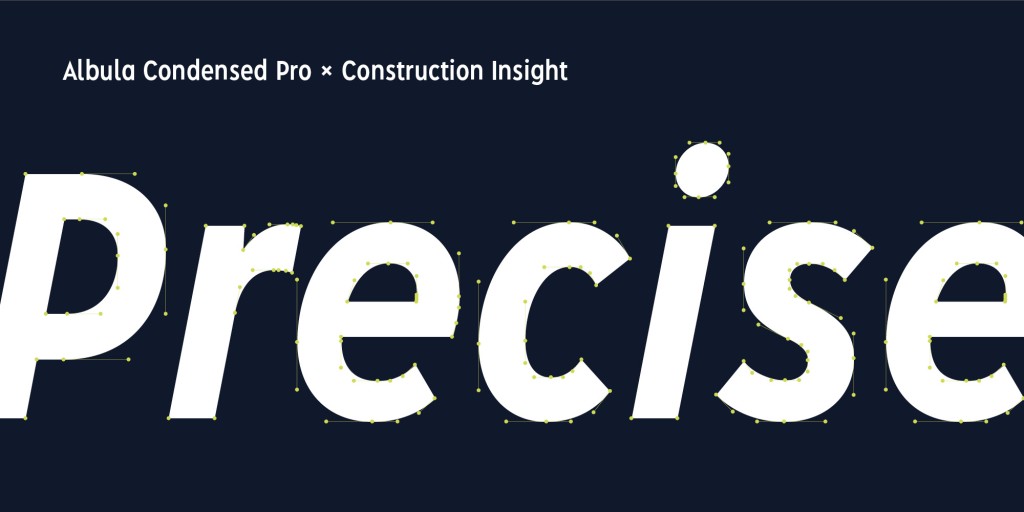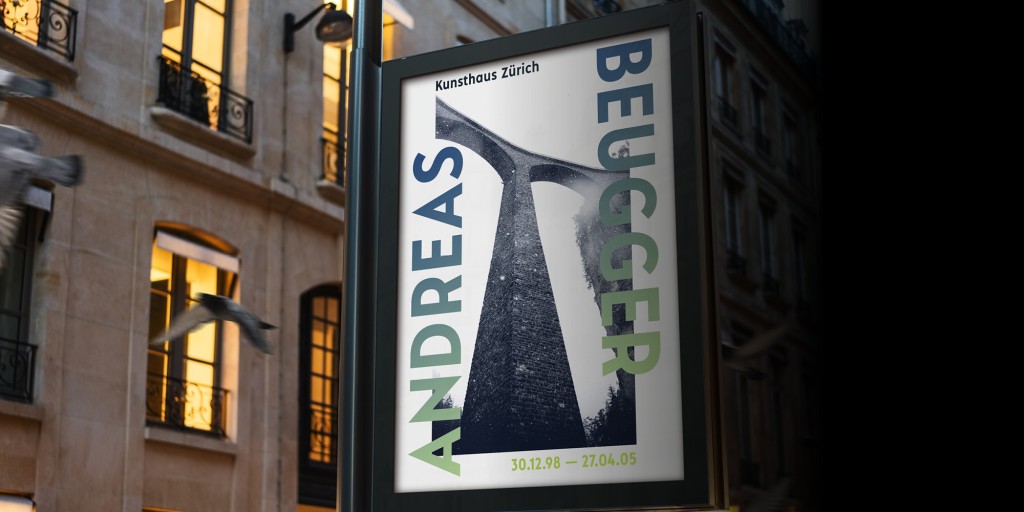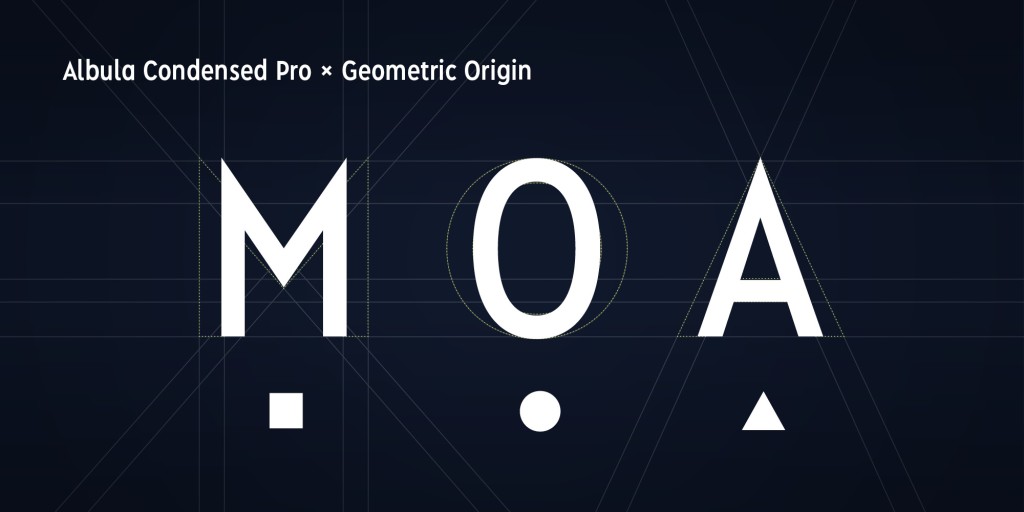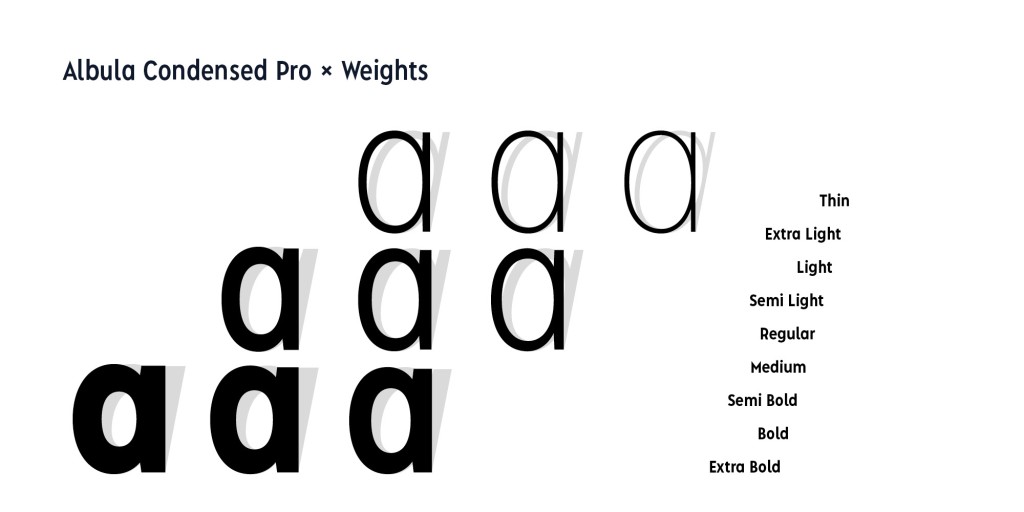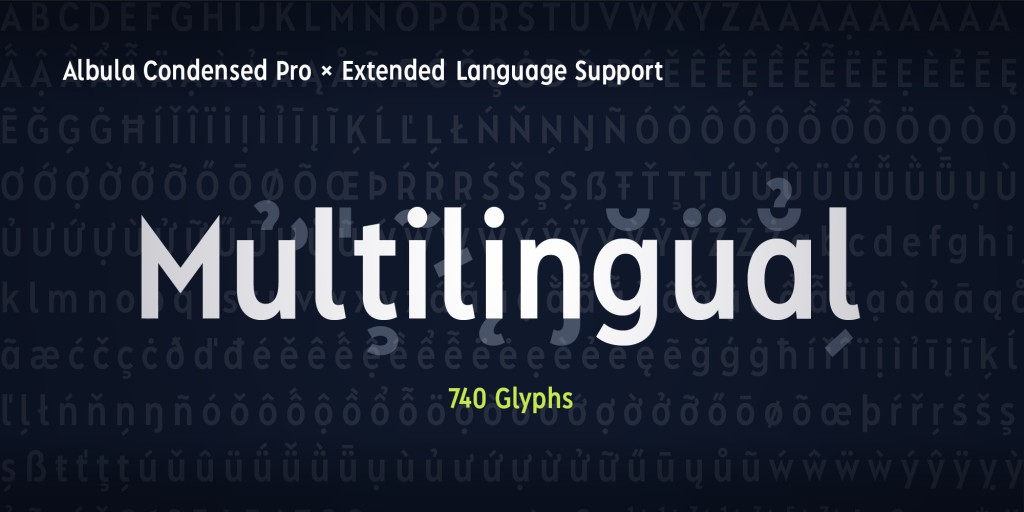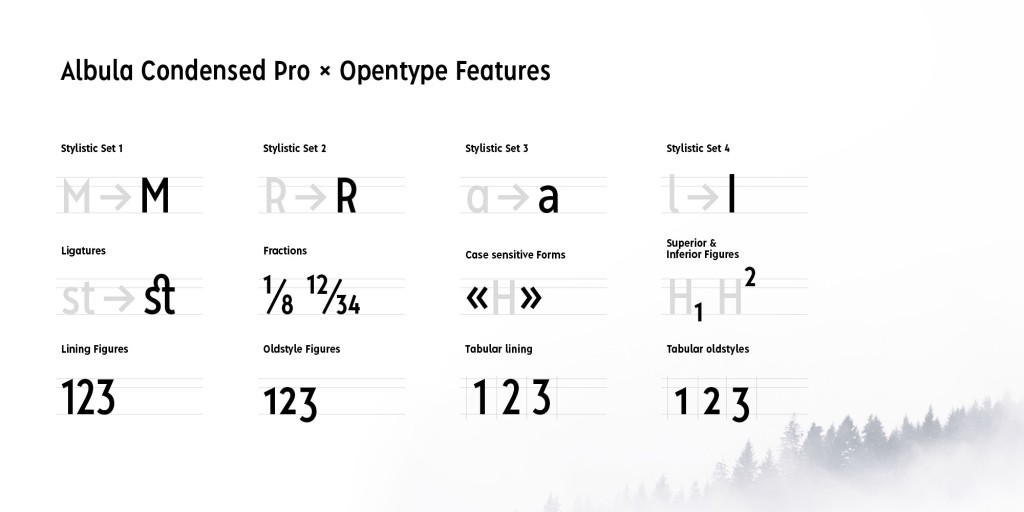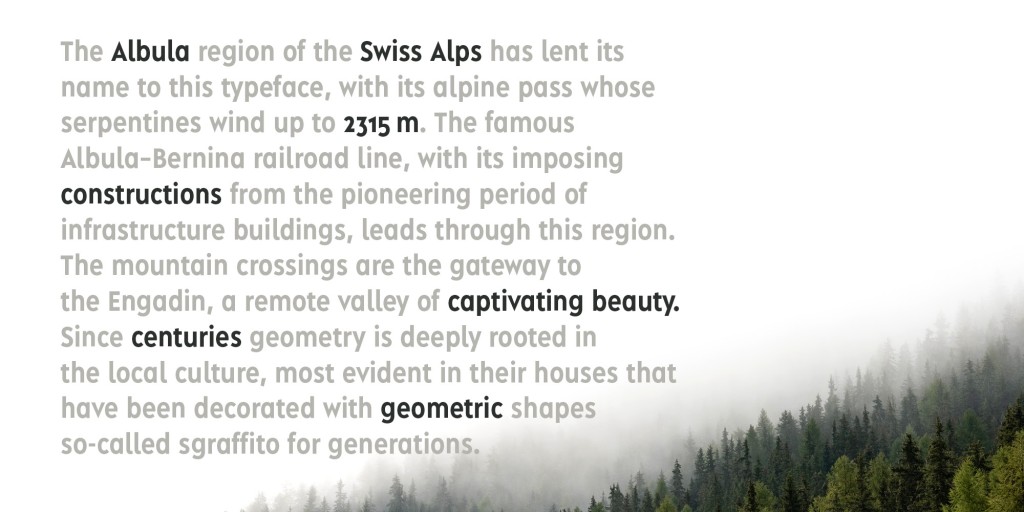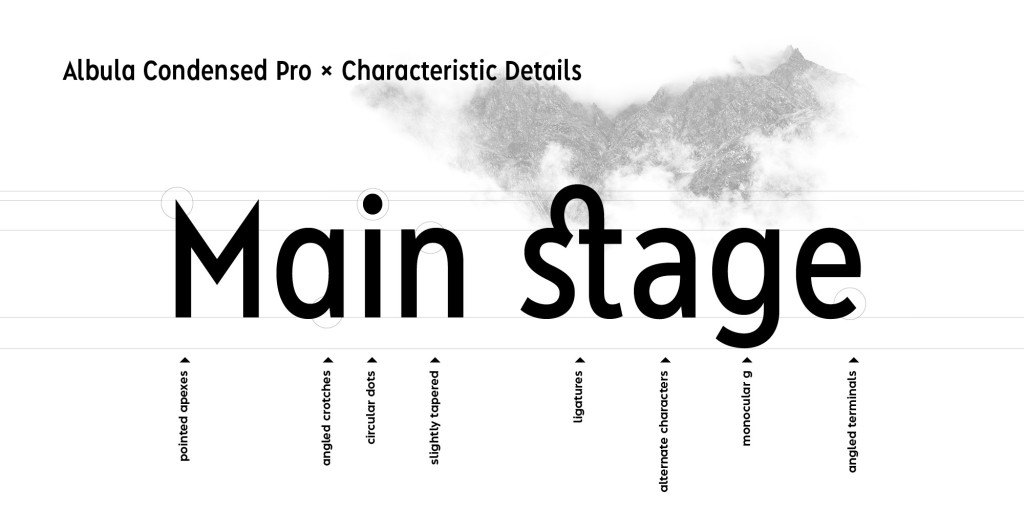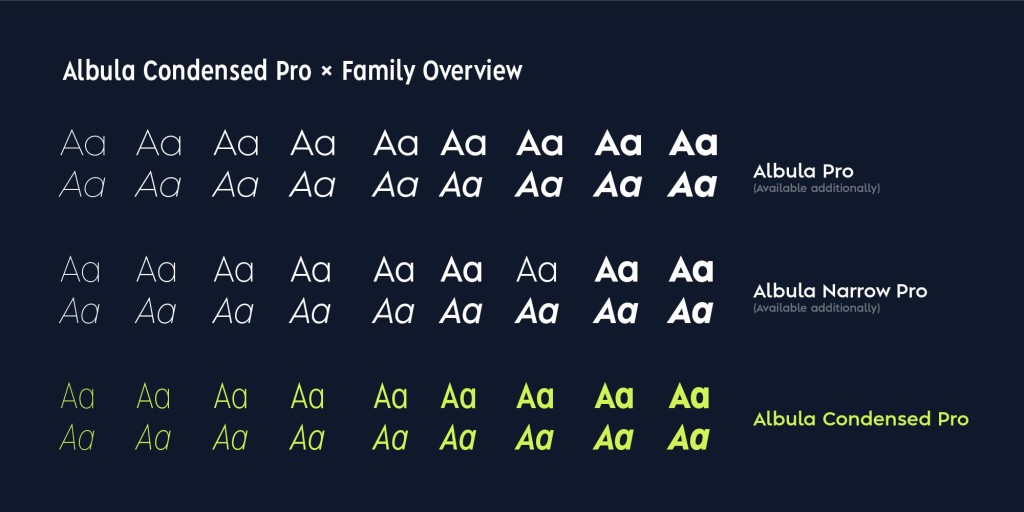
Albula Condensed Pro
The condensed variant of the Albula family, designed for situations where space is at a premium. Its tight proportions maintain excellent legibility even at small sizes.
Our condensed geometric sans – Albula Condensed Pro by Silvio Meier
Albula Condensed Pro is the latest member of the growing Albula typeface family. The distinctive stylistic expression of the Albula with its unique form-details is clearly noticeable. The clarity with the sharpness of the endings as well as the derivation from the basic geometric forms can still be felt.
Thanks to its narrow appearance the Albula Condensed Pro is very well suited wherever compactness is required. This can range from applications in the field of branding to packaging design or signage. It’s a match even for narrow text columns and spreadsheets. As with its origin, during the development great importance was attached to legibility, so that a good reading experience is guaranteed, whether in a digital or analog use.